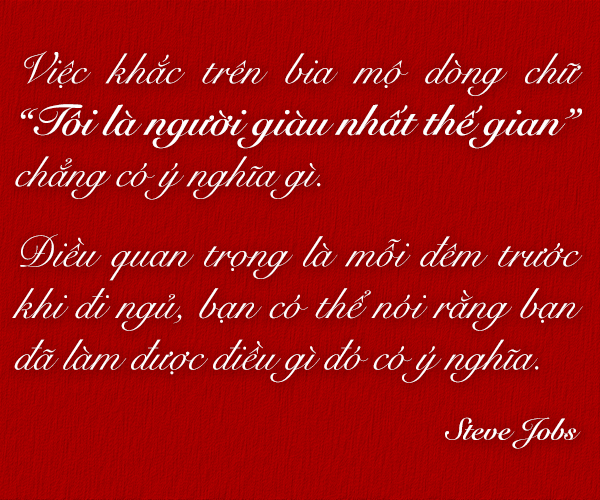
[Script] Snell Roundhand Script Việt hóa
Thông tin về font Snell Roundhand Script
Late in the seventeenth century, the English writing master, Charles Snell, decried all flourishes in the Puritan tradition and stood for a plain and efficient form of roundhand. The large x-height of these unadorned forms suited the purpose of the English roundhand, the standard commercial hand of the developing economic revolution, the typewriter face of its day. The overhangs on these letters were too large to cast in metal, blocking evolution to typography. Flourishes on the more elaborate forms could be adapted to fill body space, reducing or eliminating overhangs, allowing flourished scripts to appear in type. In 1966 Matthew Carter translated Snell’s script for photocomposition, later adding two more weights. With its large x-height and severely graceful texture, Snell, impossible in metal, appears as the most typographic of photocomposition scripts.
Designer: Charles Snell, Matthew Carter
Date publish: 1965
Publisher: Linotype